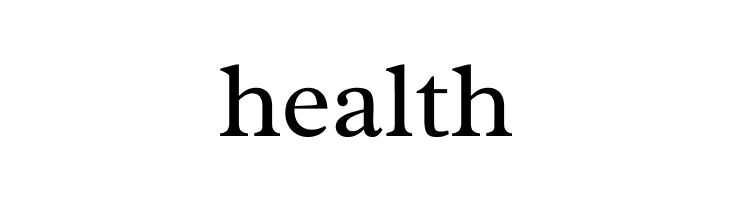
A bold, serif font with dramatic, angular strokes and sharp serifs.
A modern, light sans-serif font with clean lines and excellent readability.
A classic serif font with elegant curves and moderate contrast.
A playful, modern handwritten font with a casual and dynamic style.
A bold, rounded font with a modern and playful aesthetic.
A modern, clean sans-serif font with excellent readability.
A bold, modern sans-serif font with excellent legibility and a slightly condensed style.
A modern, light sans-serif font with excellent readability and a friendly appearance.
A modern, geometric sans-serif typeface with clear, balanced characters.
A modern, rounded sans-serif font with excellent readability and balanced proportions.